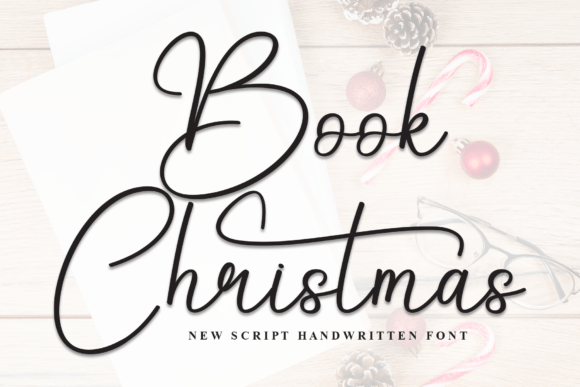
The Magic of Book Christmas Font: A Designer’s Delight
Ah, the joy of discovering a font that perfectly captures the essence of a project! I recall working on a wedding invitation design, determined to create something truly special. The challenge? Finding a font that exuded elegance, sophistication, and a touch of whimsy. That’s when I stumbled upon Book Christmas, a stylish and incredibly elegant script font that has since become a staple in my design toolkit.
- ✅ Elegant and sophisticated: Book Christmas is perfect for designs that require a touch of luxury and refinement.
- ✅ Highly versatile: This font shines on wedding invitations, thank you cards, quotes, greeting cards, logos, business cards, and more.
- ✅ Easy to read: Despite its elegant nature, Book Christmas remains surprisingly legible, even at smaller font sizes.
- ✅ Unique character: The font’s distinctive style sets it apart from more traditional script fonts.
- ⚠️ Limited use in very formal or traditional designs: Book Christmas’s elegant nature might not be suitable for extremely formal or traditional projects.
- ⚠️ May require adjustment for longer texts: While the font is generally easy to read, longer blocks of text might benefit from adjustments to font size or line spacing.
The Story Behind Book Christmas: A Glimpse into the Designer’s Inspiration
Book Christmas was crafted with love and care by a talented designer who sought to create a font that would evoke the magic of the holiday season. With its elegant lines, flowing curves, and whimsical touches, this font is sure to bring a touch of wonder to any design.
Q: What makes Book Christmas so special?
A: Book Christmas stands out for its unique blend of elegance, sophistication, and whimsy, making it perfect for a wide range of designs.
Q: Is Book Christmas suitable for body text?
A: While Book Christmas is elegant and easy to read, it may not be the best choice for lengthy body text. Consider using a more traditional font for extended passages.